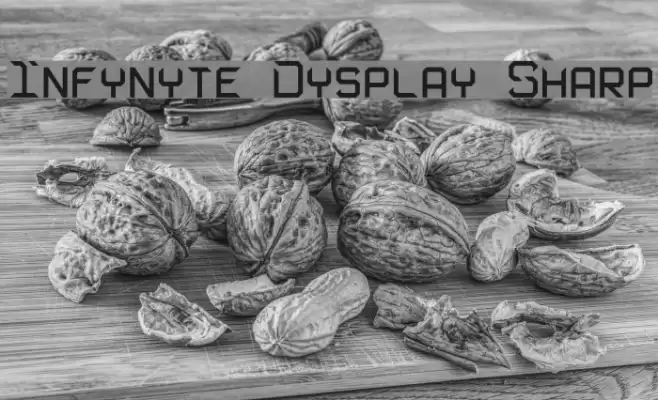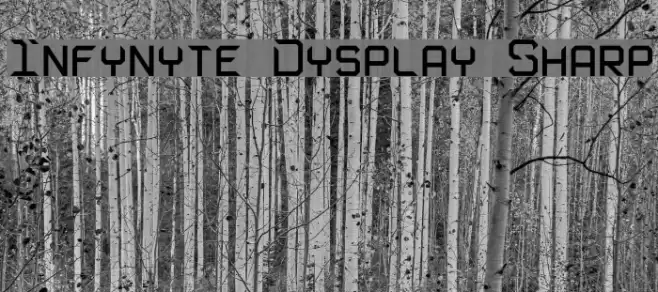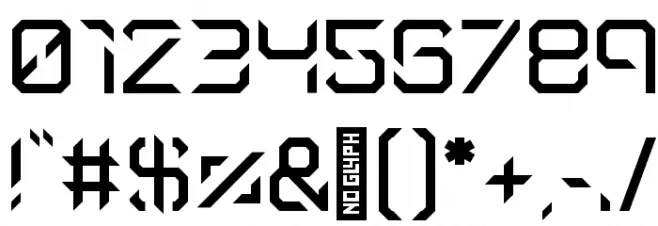
Infynyte Dysplay Sharp Font
Infynyte Dysplay Sharp Description
This font features a futuristic and geometric design, characterized by sharp angles and a bold presence. The uppercase and lowercase letters share a consistent style, with angular cuts and a blocky appearance that gives it a modern and edgy look. The numbers and special characters follow the same design principles, ensuring uniformity across all glyphs. The font's distinct style makes it suitable for projects that require a strong visual impact and a contemporary feel.
A futuristic, geometric font with sharp angles and a bold design from Uncategorized fonts.
- Proposed Projects: Ideal for sci-fi themed projects, technology branding, video game titles, and modern posters.